Due to Han unification, the same code point represents the Chinese (T/S), Japanese and Korean variants of a given character. The rendered glyph is determined by locale, lang tag (web) or similar. If a variable like this is misconfigured, it can lead to confusion or irritation with natives and misunderstandings with learners.
One such character is 噌 like in 味噌{みそ}. Source Han Sans renders it as but MS Gothic on XP renders it as . This led me to wonder which one is actually correct.
There are characters for both variants of the right-hand side of 噌; 曾 and 曽. 曽 is more common according to Jim Breen's KANJIDIC.
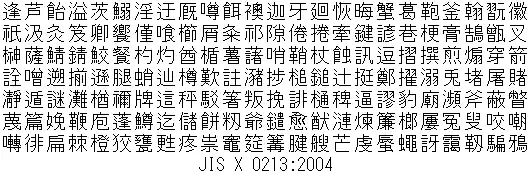
The reason why the glyphs differ is because the rule changed in 2004, after the release of XP. The following chart (from WP) would be the summary.
The second from left of row 4 is the 噌. It becomes rendered in more traditional shape since 2004. The JIS standard decided to conform their representational glyphs to 表外漢字字体表 publicized by the Agency for Cultural Affairs. Before that, no official stipulation for those not in 常用漢字 so JIS committee chose glyphs on their own (see my another post to Why wasn't 欒 simplified to 栾, when 戀 was simplified to 恋?). All fonts shipped with succeeding OSes since Vista should match the new form.
The glyph change is only normative to printed characters. Both shapes are recognized in handwriting and people usually choose the simpler one.